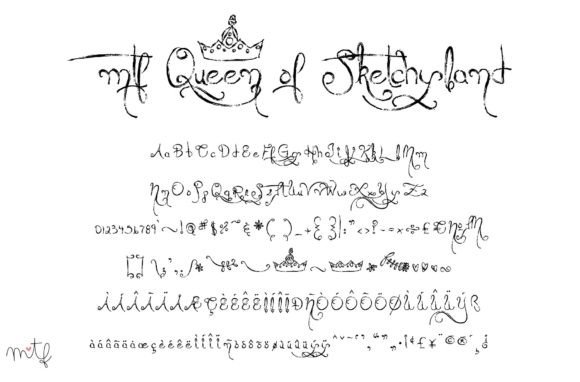
Queen of Sketchyland Font
About Queen of Sketchyland Font
Presenting the regal font fit for the Queen of Sketchyland—a typeface that epitomizes exquisiteness, balance, and natural beauty. This signature font boasts characters that flow gracefully, turning your creations into enchanting tales straight out of a fairyland.
In the realm of typography, this font stands as an embodiment of regality. Its exquisite design reflects the attention to detail one might associate with a queen’s signature. Each character is crafted with precision, ensuring a level of sophistication that befits royalty.
Balance is a key attribute of this font. The characters harmonize seamlessly, creating a visual equilibrium that contributes to the font’s overall elegance. This balance extends beyond individual letterforms, creating a cohesive and refined appearance across words and sentences.
Natural beauty is inherent in every stroke of this font. The flowing characters carry an organic quality, reminiscent of handcrafted calligraphy. This natural aesthetic enhances the font’s overall charm, making it a perfect choice for those who appreciate beauty inspired by the world around us.
The characters of this font dance gracefully on the digital or printed canvas. The flowing strokes evoke a sense of movement and rhythm, as if the letters themselves are telling a story. The result is a visually engaging and enchanting display that captures attention.
When applied to items, whether in print or on-screen, this font has the power to transform them into pieces of art straight from a fairy tale. Whether it’s invitations, banners, or any other design element, the Queen of Sketchyland’s signature font elevates them to a realm of sophistication and fantasy.
In essence, this signature font is more than a mere collection of letters; it’s a storytelling tool. It weaves a narrative of elegance, balance, and natural beauty, creating an enchanting atmosphere that resonates with the whimsy of fairy tales. As the Queen of Sketchyland’s signature font, it invites you to infuse your creations with a touch of royal grace and captivating charm.